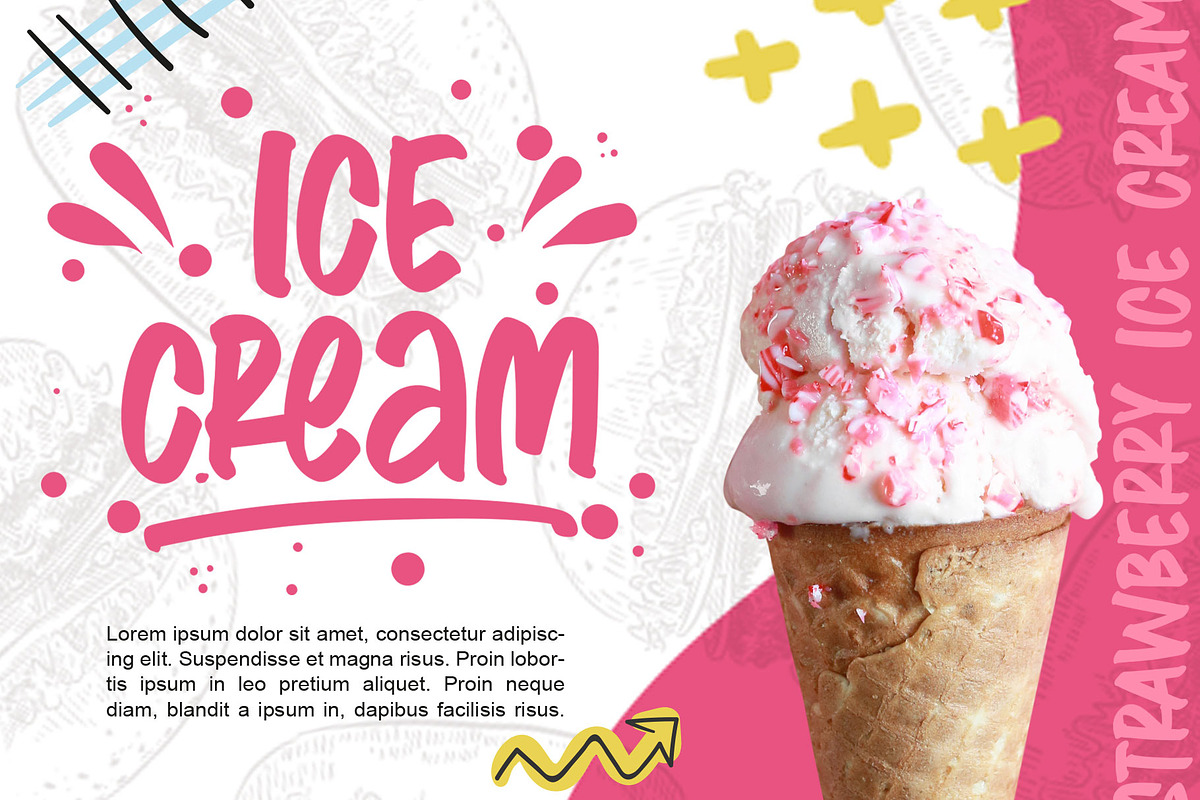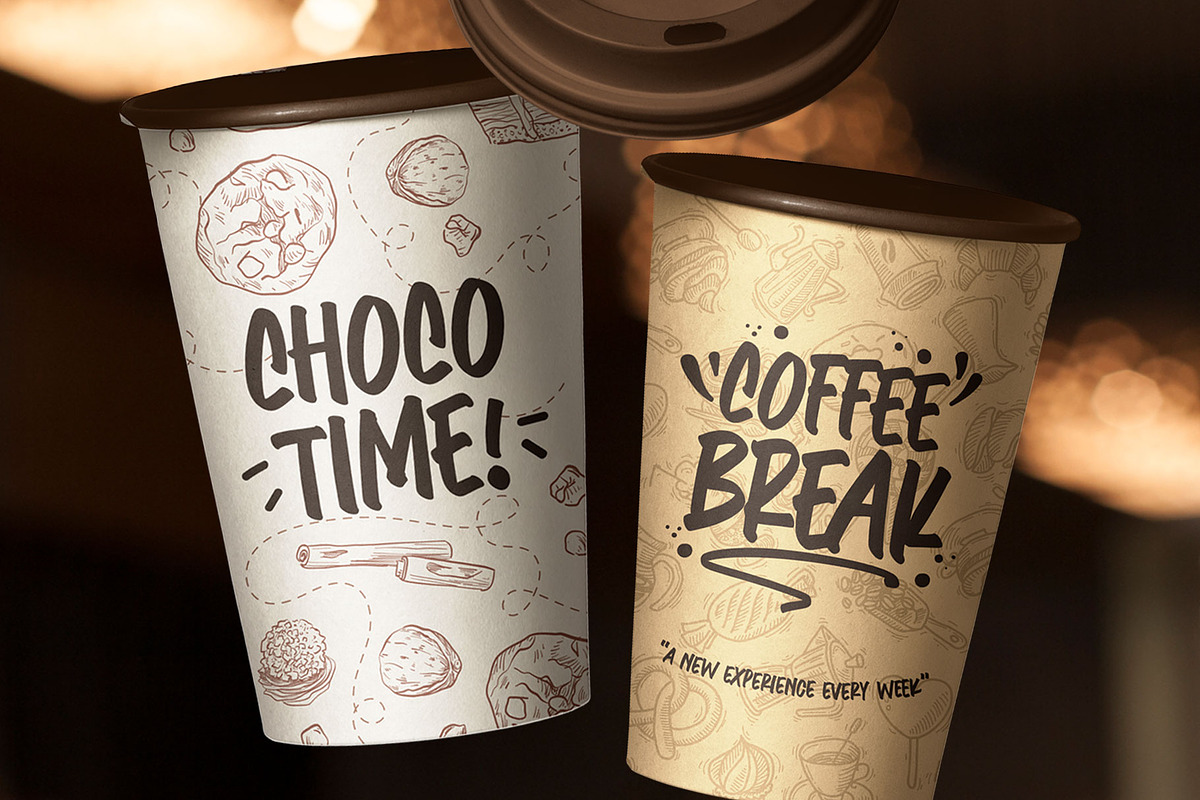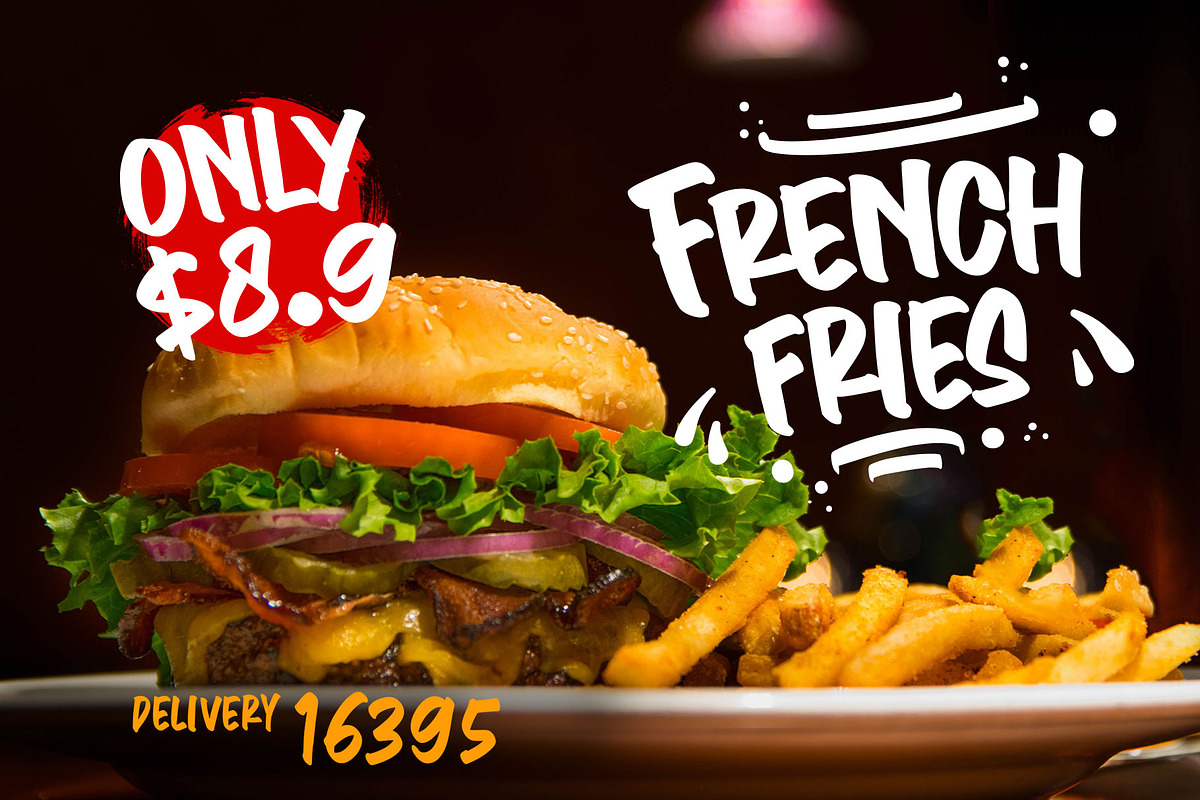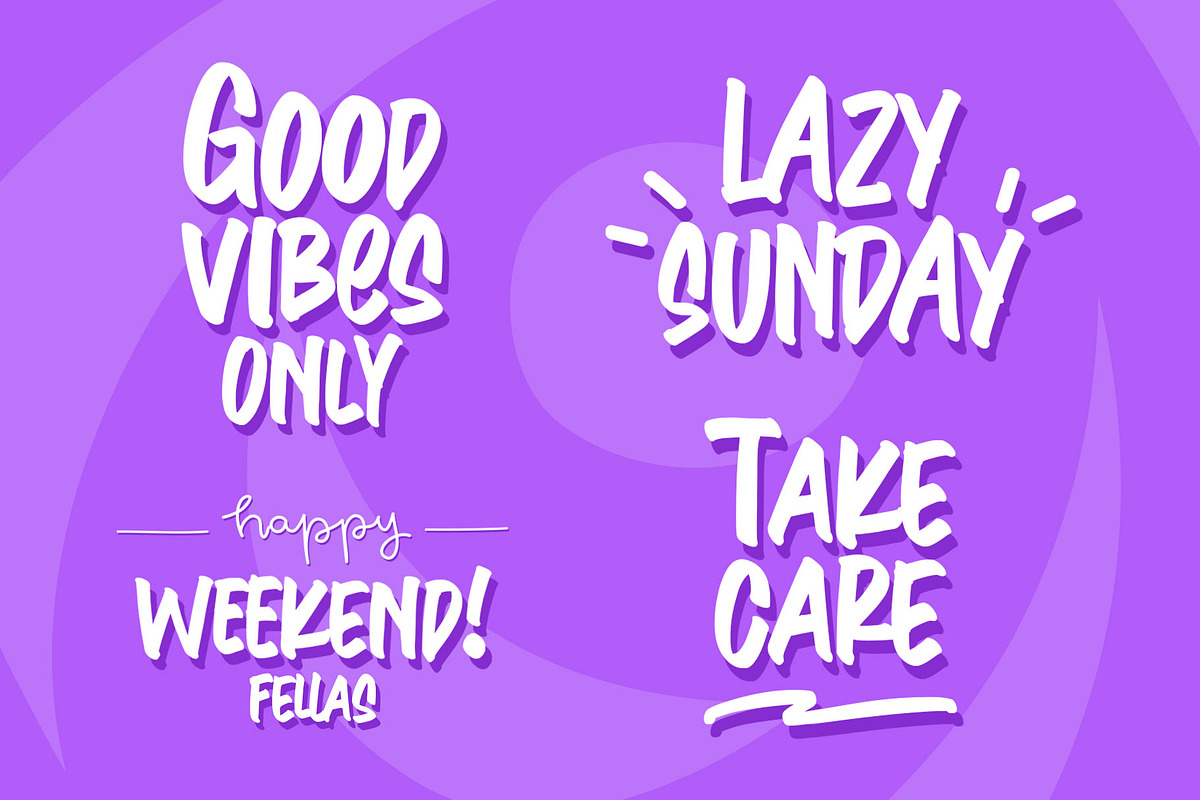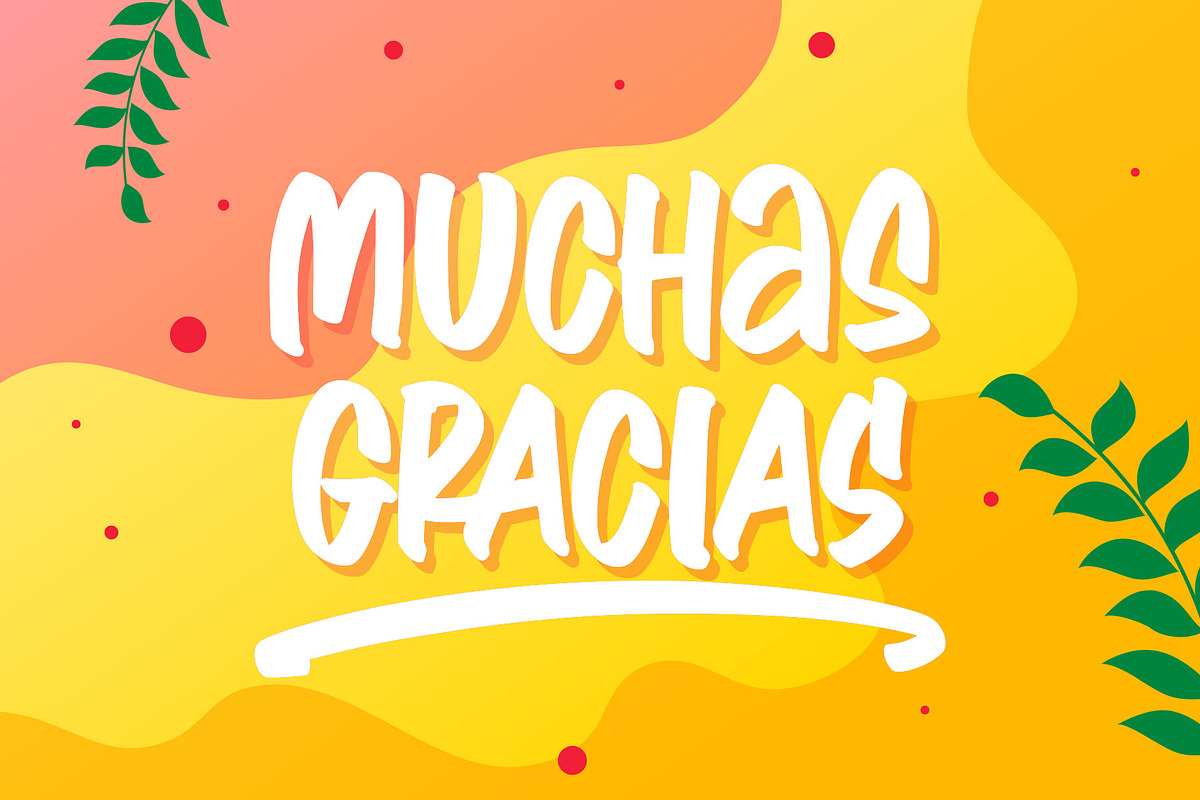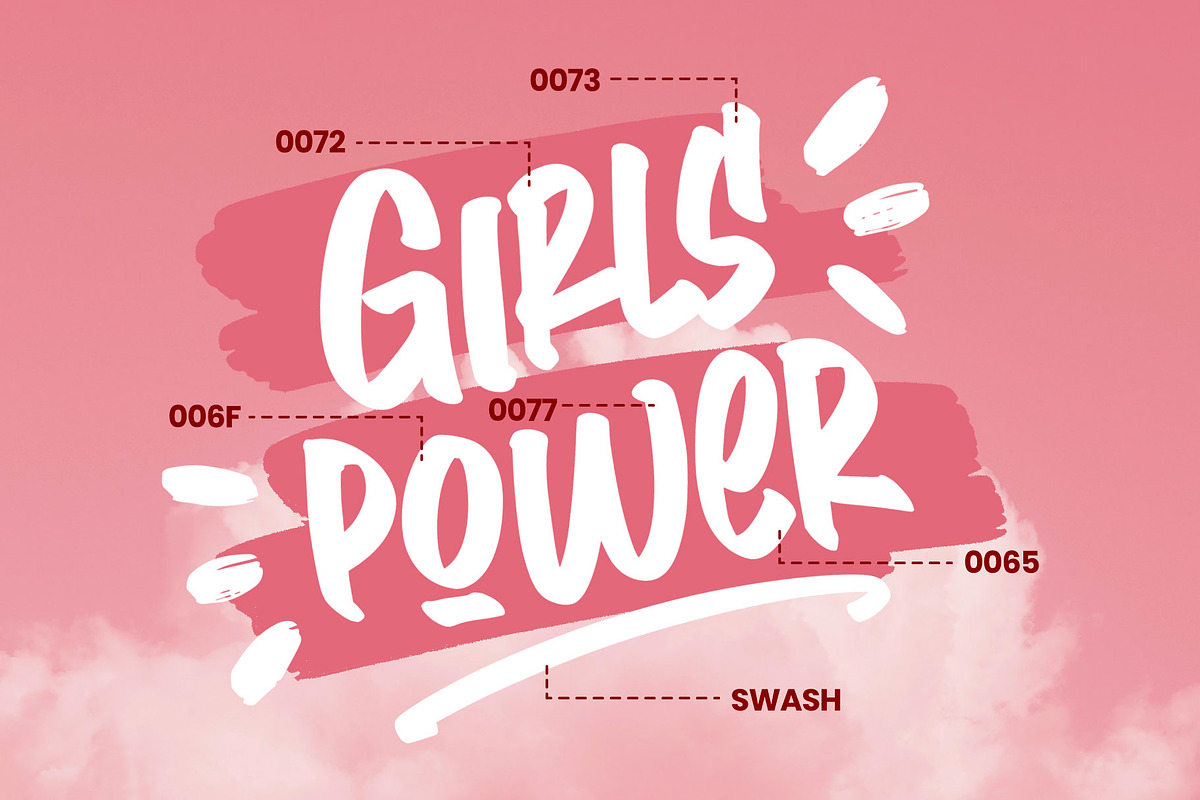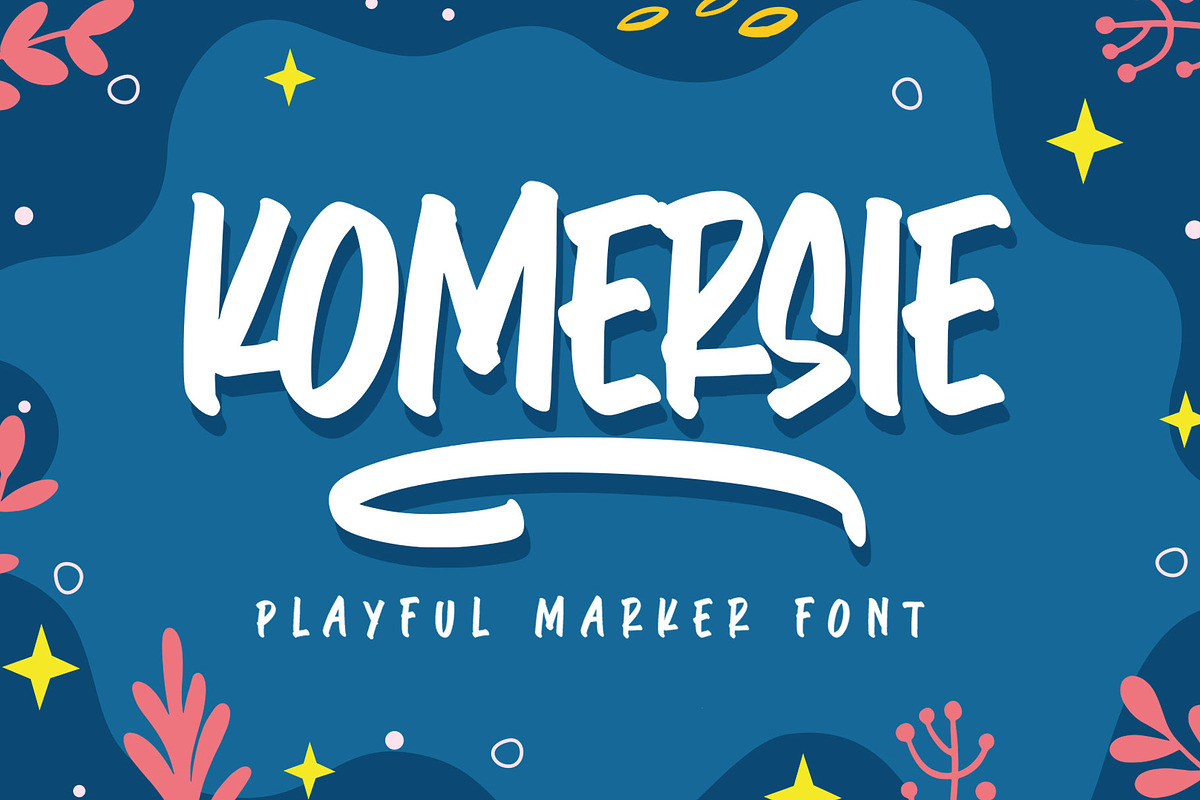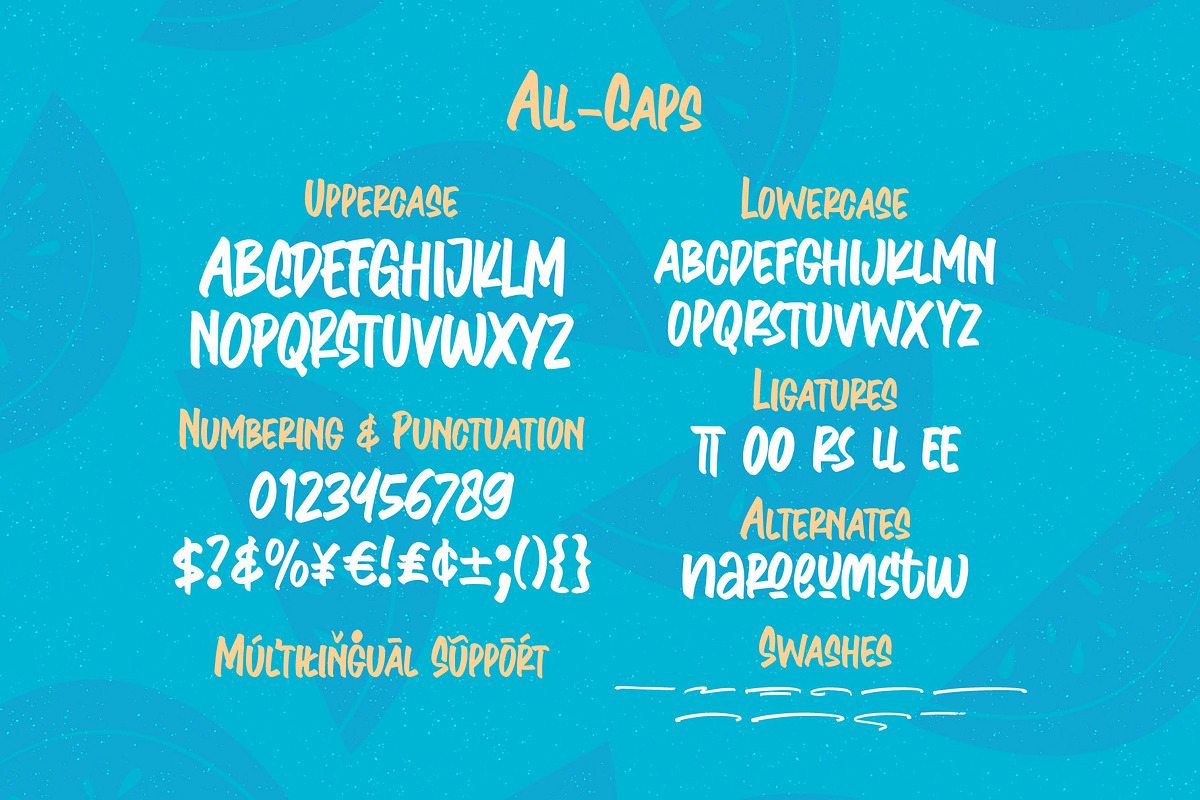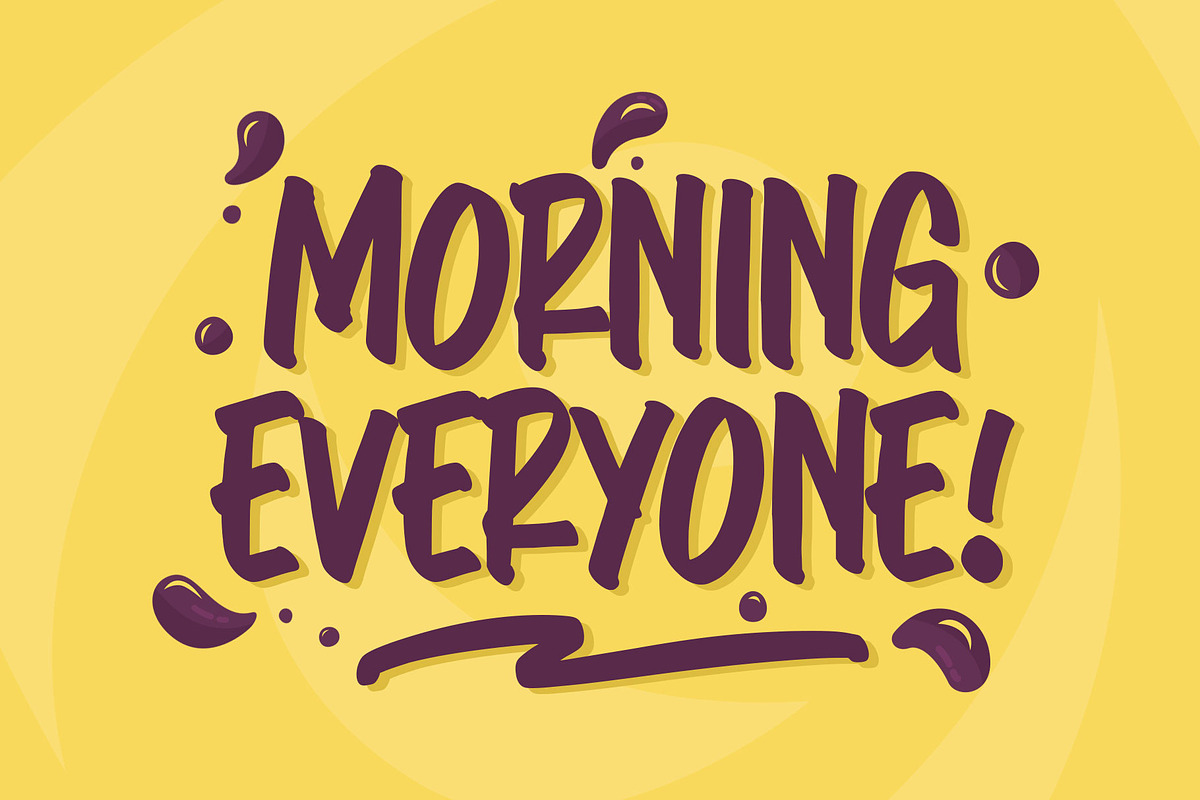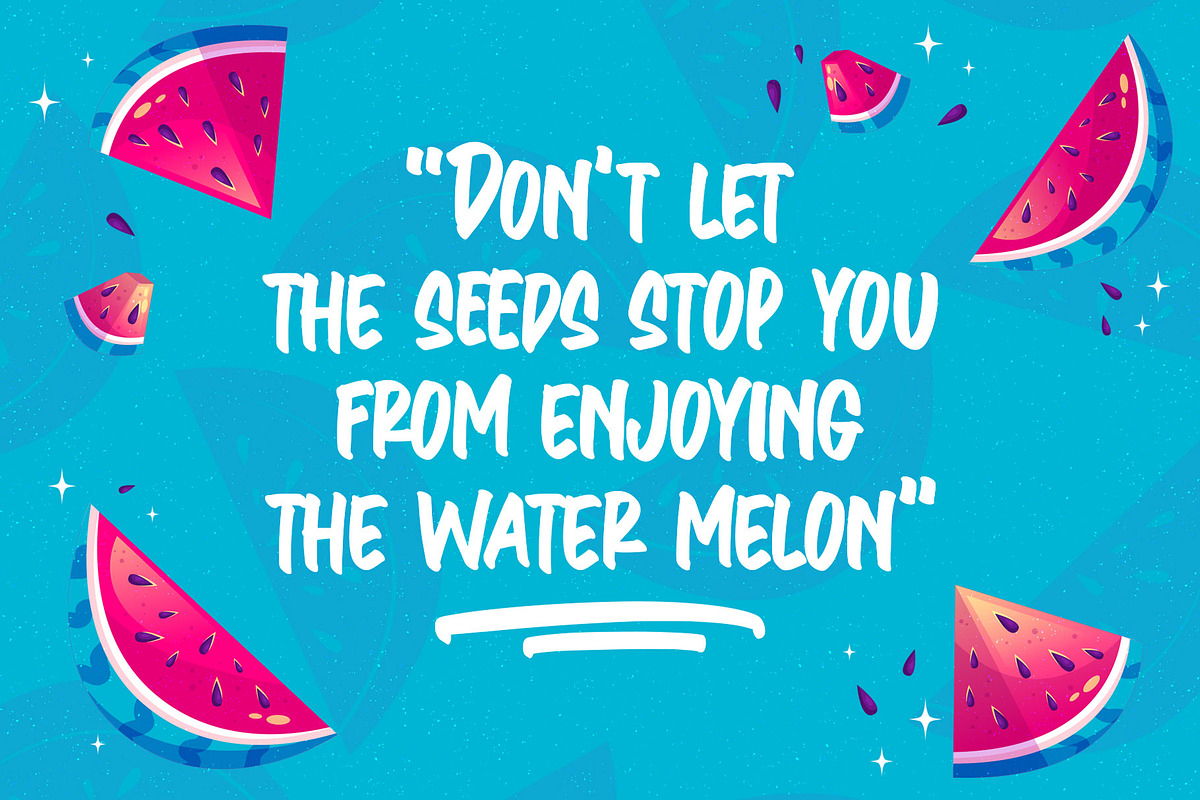
Komersie - Playful Marker
Say hello to Komersie, a playful marker font. Made with the natural marker brush and slightly slanted stroke, that gives the more handwriting feels. Komersie is an all-caps font with small caps, alternates, and swashes. The joyful font to cheer up your project! Perfect for children's design, labels, display, recipes, sale banners, posters, short quotes, and cute packaging!